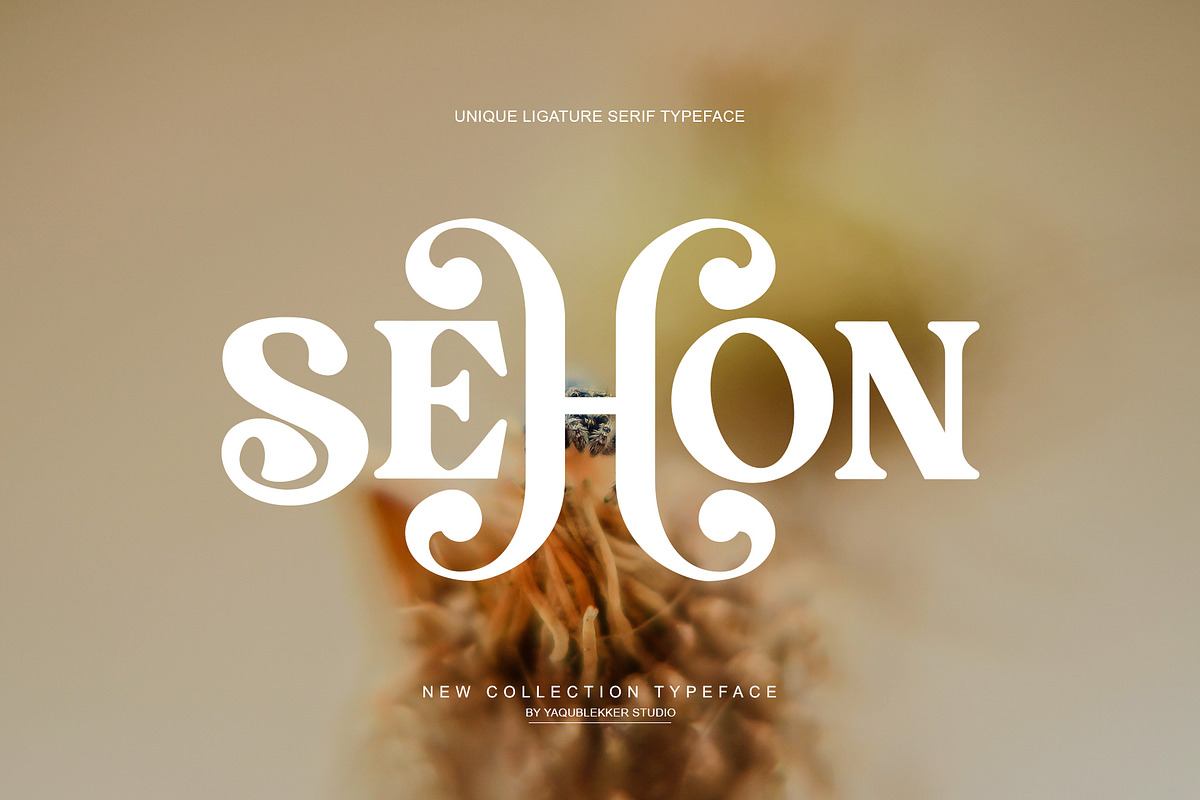
Sehon Ligature Serif Font Free Download is a sophisticated and elegant serif typeface designed with unique ligatures that bring an extra touch of style to your designs. Its timeless structure, paired with carefully crafted letter connections, makes it perfect for high-end branding, editorial design, luxury packaging, and modern web projects.
Whether you're working on a fashion brand, a luxury product, or creating a refined logo, Sehon’s detailed letterforms provide a classic yet contemporary feel. The ligatures give this font a distinctive edge, enhancing both readability and aesthetics. Sehon Ligature Serif Font Free Download lets you explore its elegance in personal projects before purchasing a commercial license.
Elevate your typography with Sehon — the ligature serif font that combines tradition with modernity.